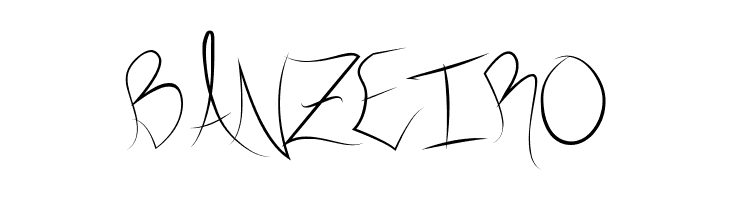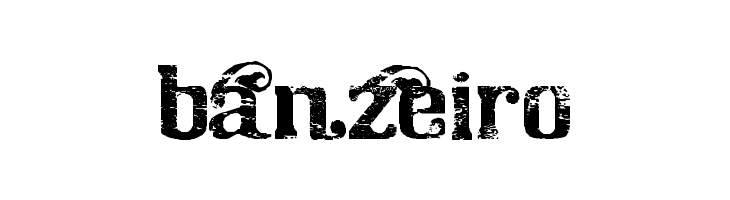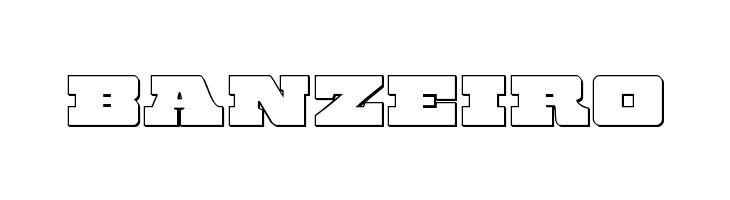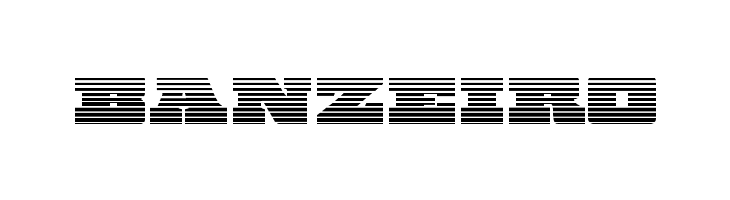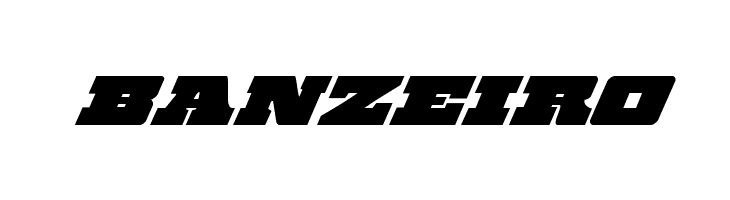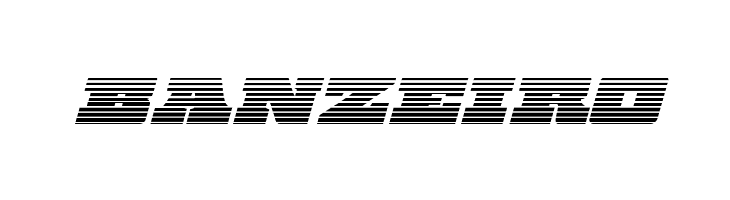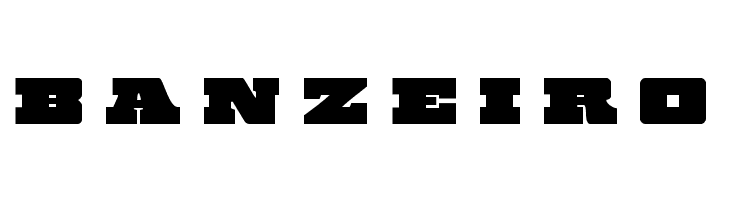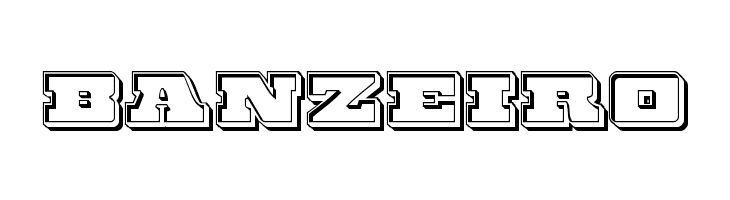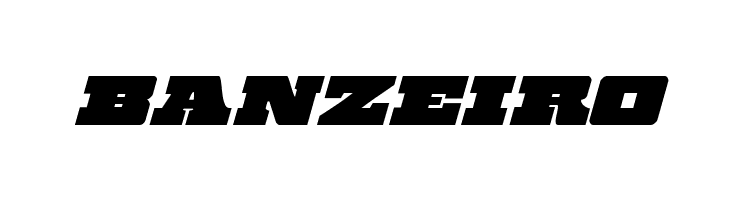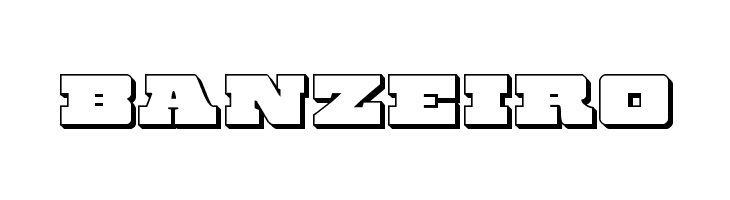
A bold, blocky typeface perfect for headlines and impactful designs.
A bold, 3D block font with strong outlines and a shadow effect.
A bold, 3D italic font with a geometric, outlined style.
A bold, geometric font with a chrome-like, layered design.
A bold, futuristic italic font with a chrome-like, layered design.
A bold, condensed typeface with a vintage, collegiate style.
Bold, condensed, and italicized font with a modern and dynamic style.
A bold, engraved font with a three-dimensional effect and strong geometric structure.
A bold, engraved, italic font with a three-dimensional outline effect.
A bold, expanded font with strong geometric shapes and minimal contrast.
A bold, expanded, and italicized font with a modern and dynamic style.
A bold, dynamic font with a horizontal line pattern and a futuristic look.
A bold, italicized font with a gradient effect and a futuristic, dynamic style.
A bold, industrial font with a halftone effect and strong visual impact.
A bold, italicized font with a halftone effect, conveying motion and speed.
A bold, italicized font with a dynamic and modern style.
A bold, geometric font with a modern, industrial aesthetic.
A bold, slanted font with a dynamic, vintage sports-inspired style.
Bold, outlined font with a geometric, blocky style.
A bold, outlined, italic font with a dynamic and geometric style.
A bold, blocky font with a vintage, collegiate style and strong outlines.
A bold, italic font with a blocky, outlined style for impactful headlines.
A bold, semi-italic font with a dynamic and geometric style.
A bold, italicized font with a dynamic and angular design.
A bold, geometric font with strong, blocky characters.
Bold, italicized font with a dynamic and impactful style.
A bold, 3D italic font with a modern, dynamic look.
A bold, 3D-style font with outlined characters and a modern, playful look.
A bold, italicized font with a dynamic and energetic style.
A bold, geometric font with uniform thickness and a modern retro vibe.
A graffiti-inspired font with sharp, angular lines and a bold, urban aesthetic.
A bold, distressed font with ornate, vintage embellishments.